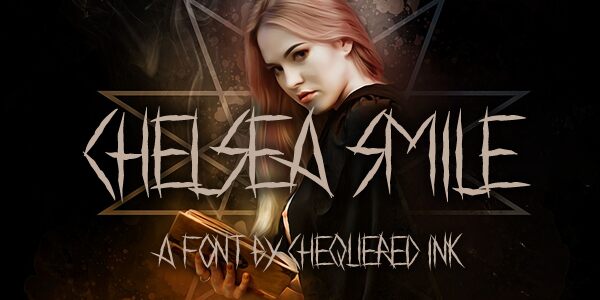
Chelsea Smile
Chelsea Smile is a striking script font that exudes an edgy, visceral aesthetic. Designed by Chequered Ink, this condensed font boasts a gritty, trash-inspired style, with jagged letterforms that command attention. The bold, angular strokes and pronounced negative space create a raw, uncompromising vibe, lending an undeniable sense of character and personality to any design.
Chelsea Smile's versatility makes it a compelling choice for a wide range of applications, from punk rock album covers to urban streetwear graphics. Its bold, unapologetic presence lends itself well to impactful headlines, while the condensed width allows for flexible layout options. Ultimately, this font is a bold, unyielding statement piece that will elevate any project with its raw, uncompromising style.